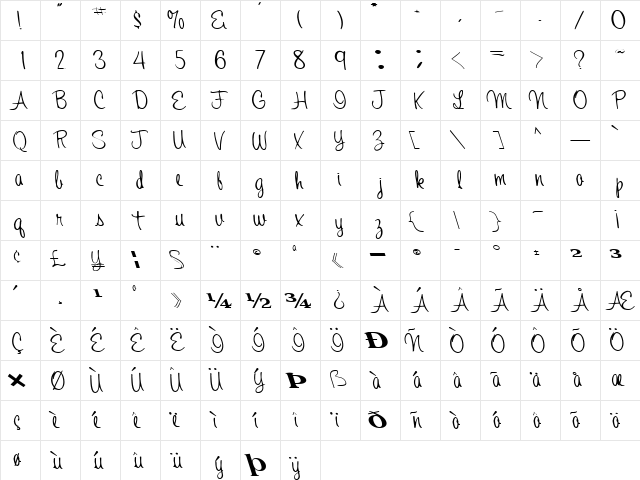
Tad Regular
Design Context for Tad Typeface
Tad takes a measured approach to typography — its balanced proportions and neutral character make it a reliable workhorse for both digital and print work.